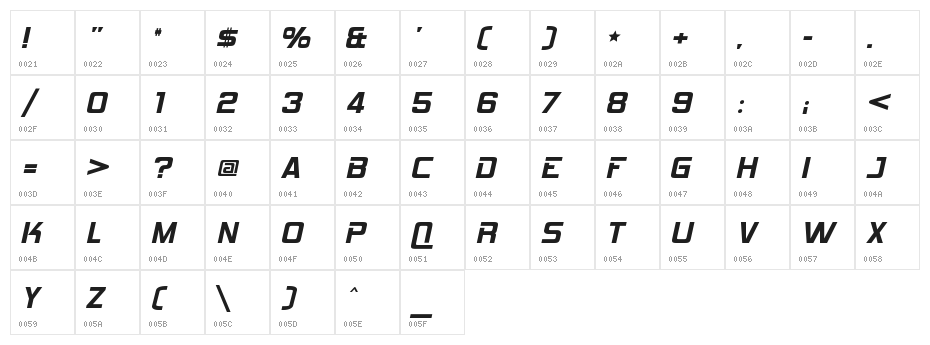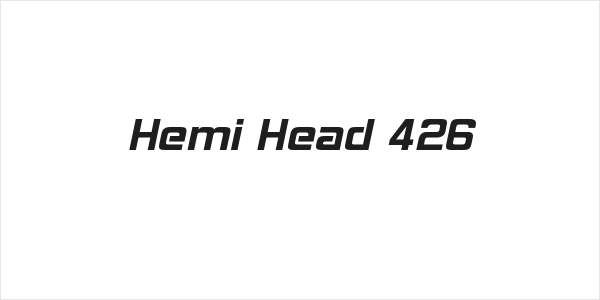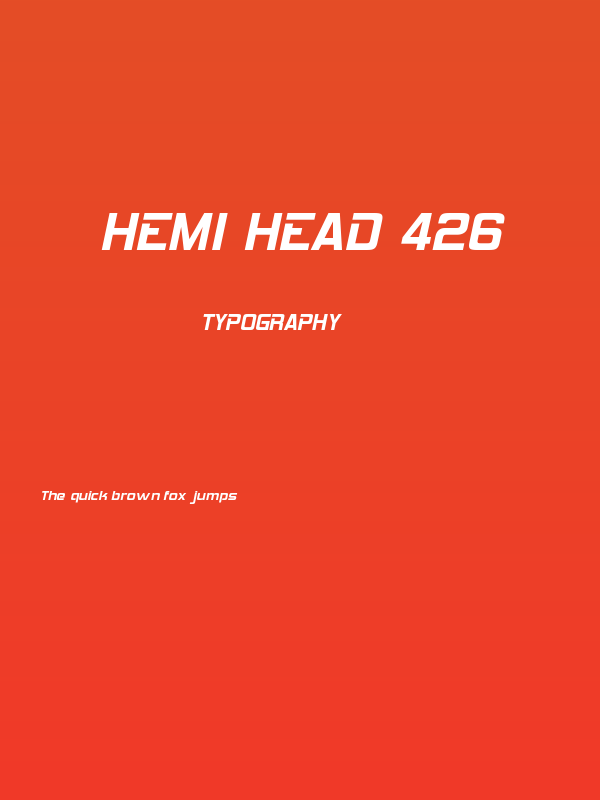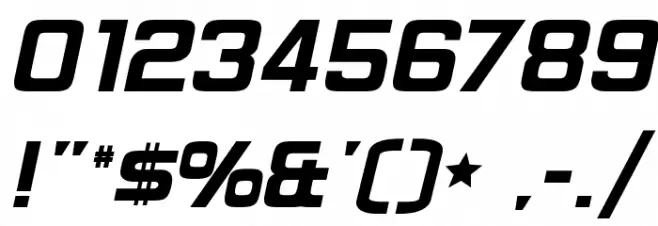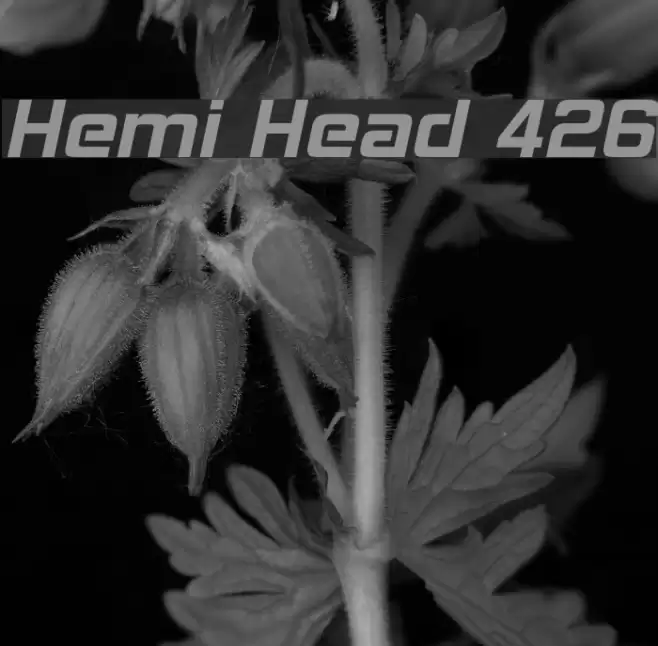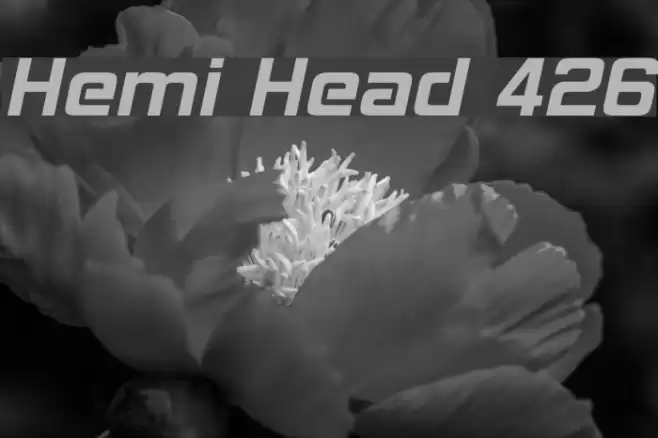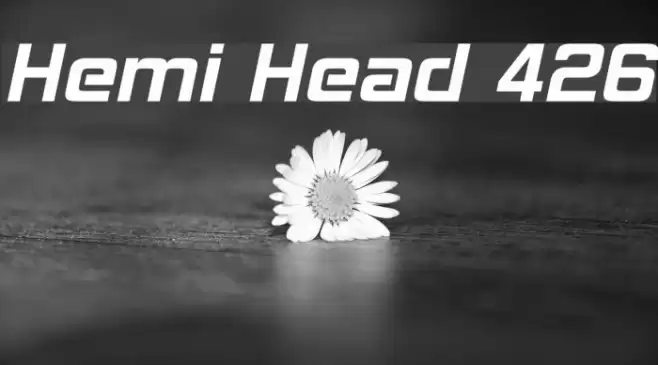
Hemi Head 426 Font
Hemi Head 426 Description
This font features a bold, angular design with a futuristic and sporty aesthetic. The characters are slightly italicized, giving a sense of motion and speed. The uppercase letters are particularly striking, with sharp edges and a strong presence. The lowercase letters maintain the same dynamic style, ensuring consistency across different text cases. Numbers and special characters are designed to match the overall theme, making them suitable for a variety of applications. The font's unique style makes it ideal for projects that require a modern and energetic look.
| Proposed Projects | Ideal for automotive branding, sports team logos, video game titles, and dynamic advertising campaigns. |